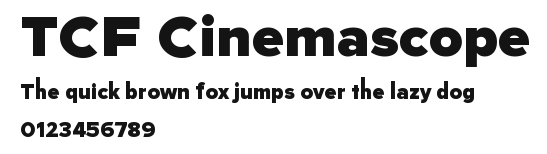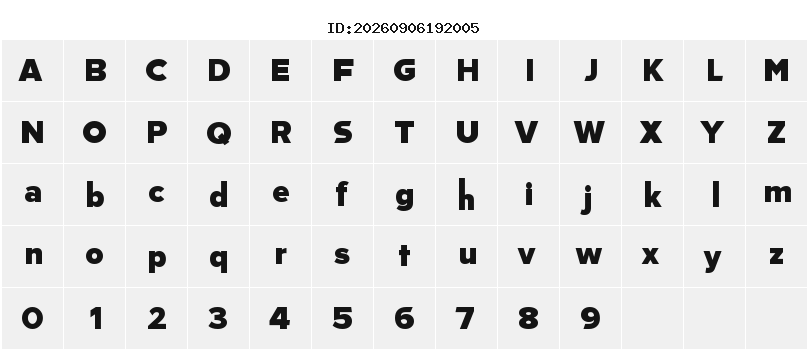
TCF Cinemascope Preview
• Font Name: TCF Cinemascope
• Full Font Name: TCF Cinemascope
• Designer: Mark Simonson
About TCF Cinemascope.ttf
TCF Cinemascope.ttf is a modern, elegant sans-serif font designed for ultimate readability and visual harmony. Perfect for branding, headlines, web design, and print materials.